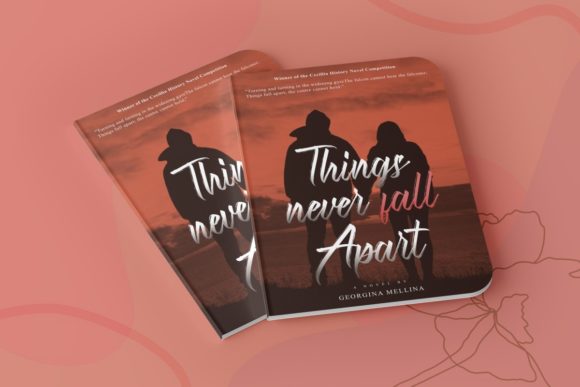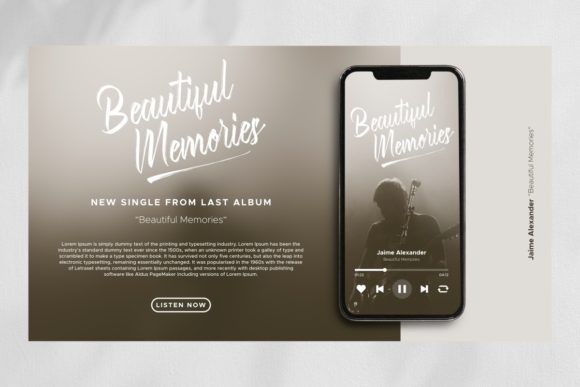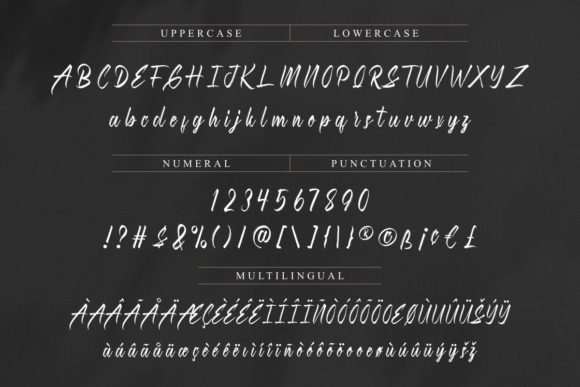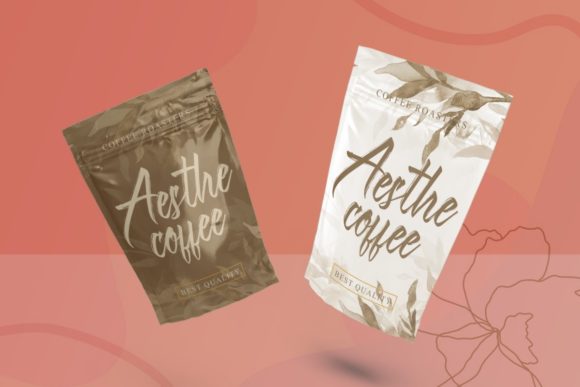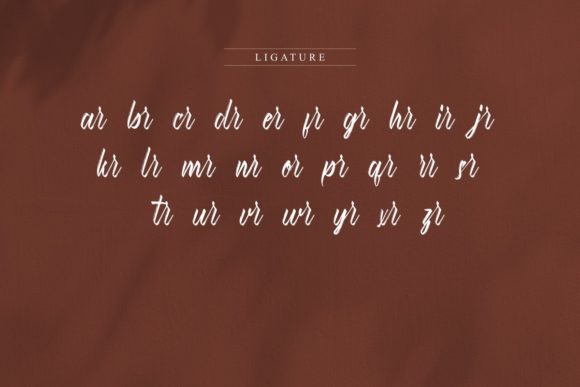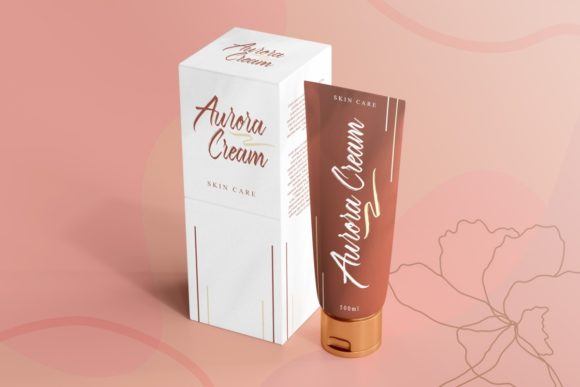
Discover the Art of Hand-Drawn Typography with Ashly Tabitha Font
Have you ever been inspired by the imperfections of a hand-drawn sketch, and wondered if it’s possible to capture that same organic feel in your digital designs? For many creatives, the answer lies in the right font – one that combines the elegance of modern typography with the charm of a natural, hand-crafted aesthetic.
Enter Ashly Tabitha Font, a textured brush calligraphic font that brings a unique touch to your designs. This beautifully crafted font is designed to evoke the feeling of a sketched, handwritten note, and its modern character style makes it perfect for a wide range of applications, from branding and marketing to editorial and artistic projects.
With its PUA encoding, accessing the intricate details and swashes of Ashly Tabitha Font is easier than ever, allowing you to unlock its full creative potential and add a touch of personality to your work. Whether you’re a seasoned designer or just starting out, this font is sure to inspire your next creative project.
Ashly Tabitha Font Key Features
- Font Type: Script, Handwritten
- Unique Characteristics: Whimsical, elegant, and romantic feel; perfect for creative and artistic projects
Ashly Tabitha Font Review
I recently had the chance to work with the Ashly Tabitha font, and I must say it’s a mixed bag. Here are my thoughts:
- Unique character: The Ashly Tabitha font has a distinctive, elegant feel that sets it apart from more common fonts.
- Legibility: The font is highly legible, even at smaller sizes, making it a great choice for body text.
- Pairing options: Ashly Tabitha pairs well with a variety of other fonts, making it a versatile choice for designers.
- Limited character set: The font’s character set is somewhat limited, which may cause issues for designers who need to use non-standard characters.
- Not ideal for headings: While the font is great for body text, it may not be the best choice for headings or titles, as it can look a bit too elegant and subtle.
- Not suitable for bold text: The font’s bold version can look a bit too condensed, which may not be ideal for designers who need to use bold text.
The Ashly Tabitha font is a solid choice for designers who want a unique, elegant font for body text. However, it may not be the best choice for headings or titles, and its limited character set may cause issues for designers who need to use non-standard characters. With some careful pairing and use, however, the Ashly Tabitha font can be a great addition to any design project.
Tips for Getting the Most Out of the Ashly Tabitha Font
Use the Ashly Tabitha Font for titles, headings, and other text elements that require a elegant and sophisticated look.
Combine the Ashly Tabitha Font with other fonts to create a unique and visually appealing design.
Experiment with different